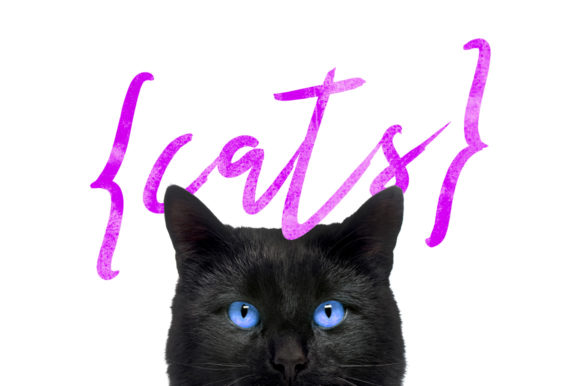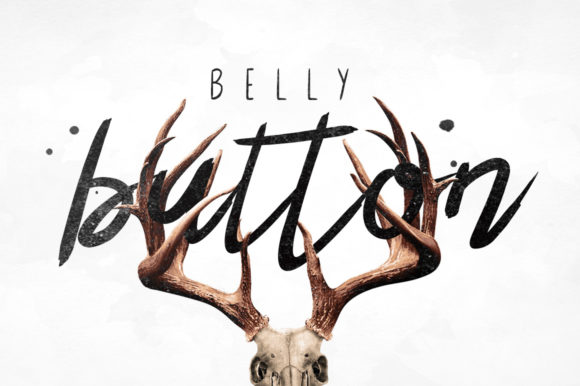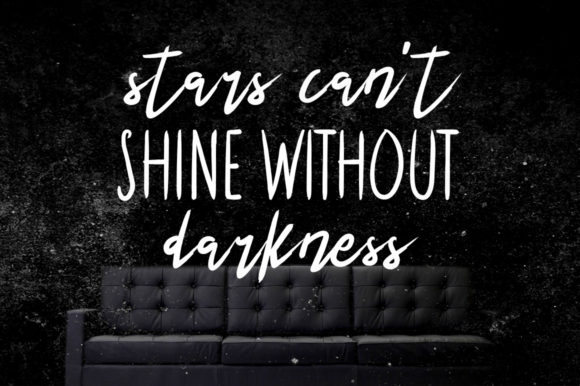
Introduction to Hattes Font
Hattes is a delicate and elegant handwritten font.
Its distinct letters make this font a masterpiece Fall in love with its incredibly versatile style and use it to create spectacular designs.
Hattes Font offers exceptional quality and versatility, making it a valuable addition to your design toolkit. Whether you’re creating for personal projects or commercial use, Hattes Font delivers professional results.